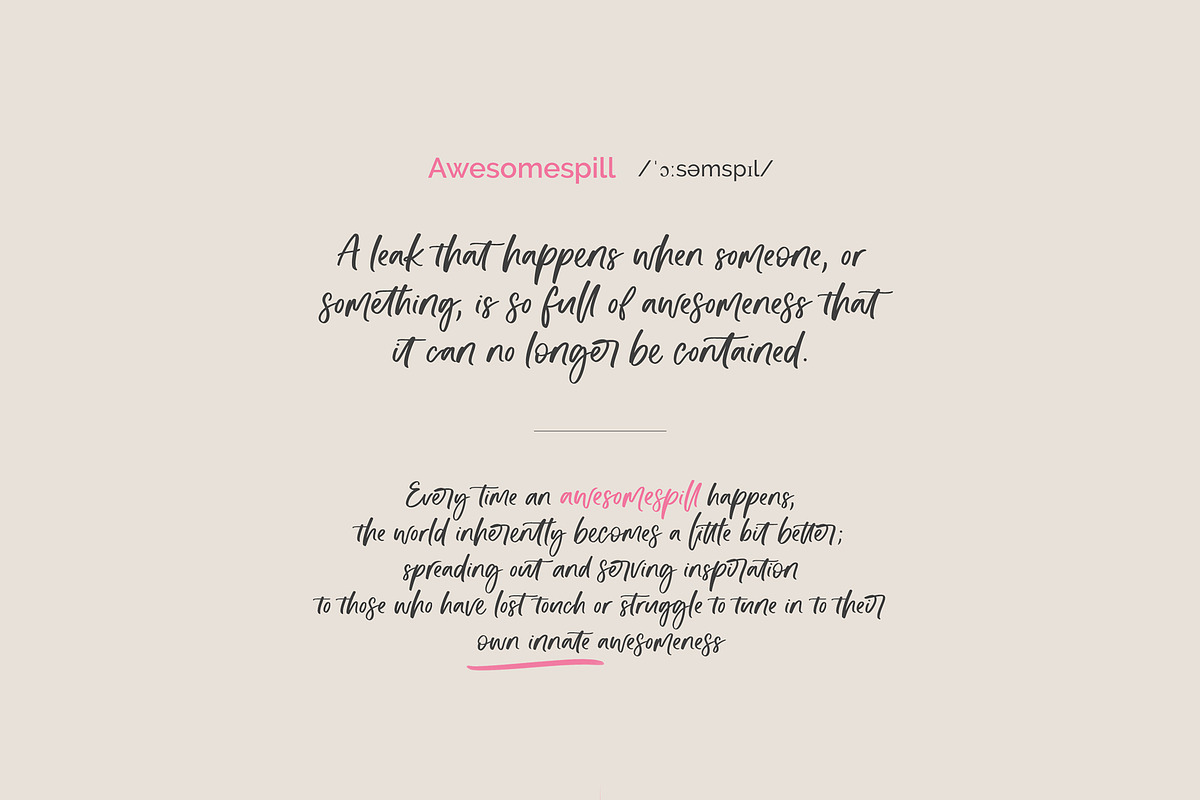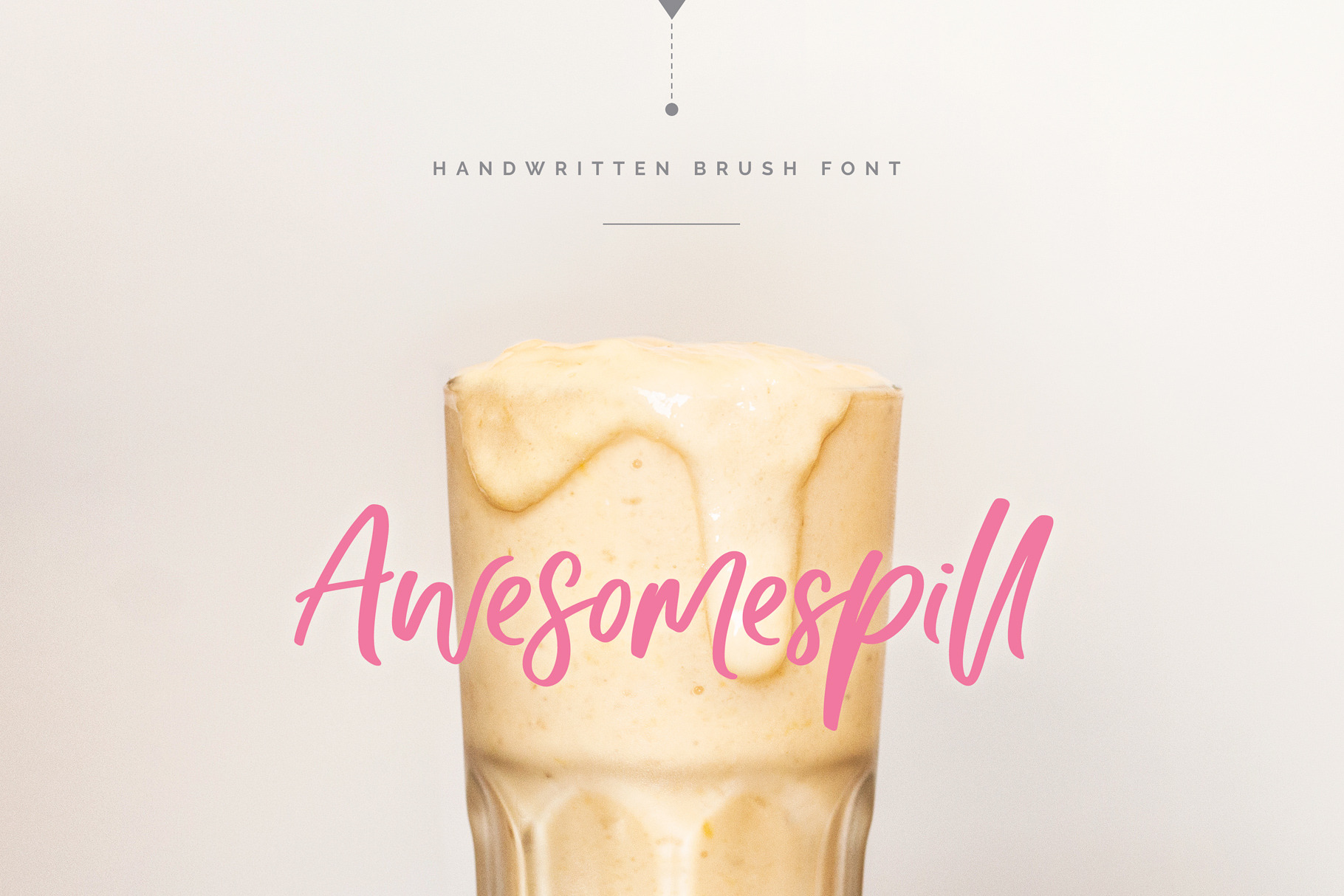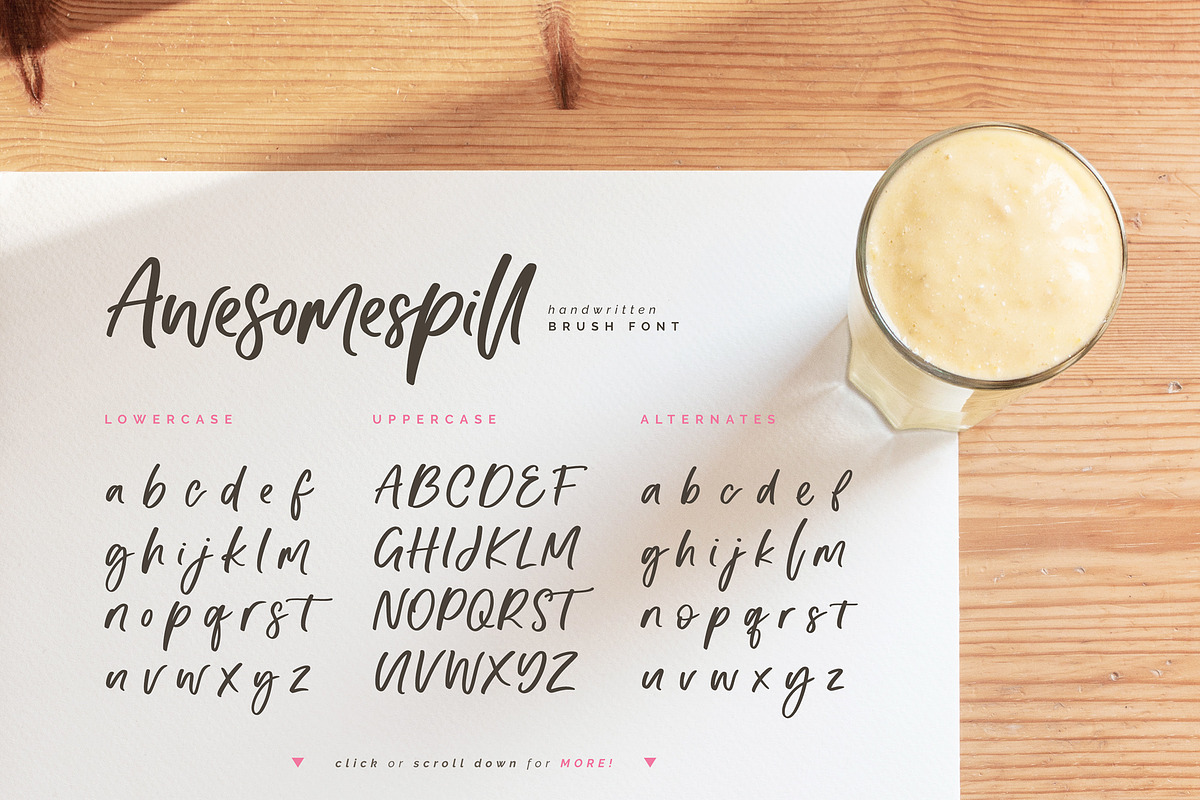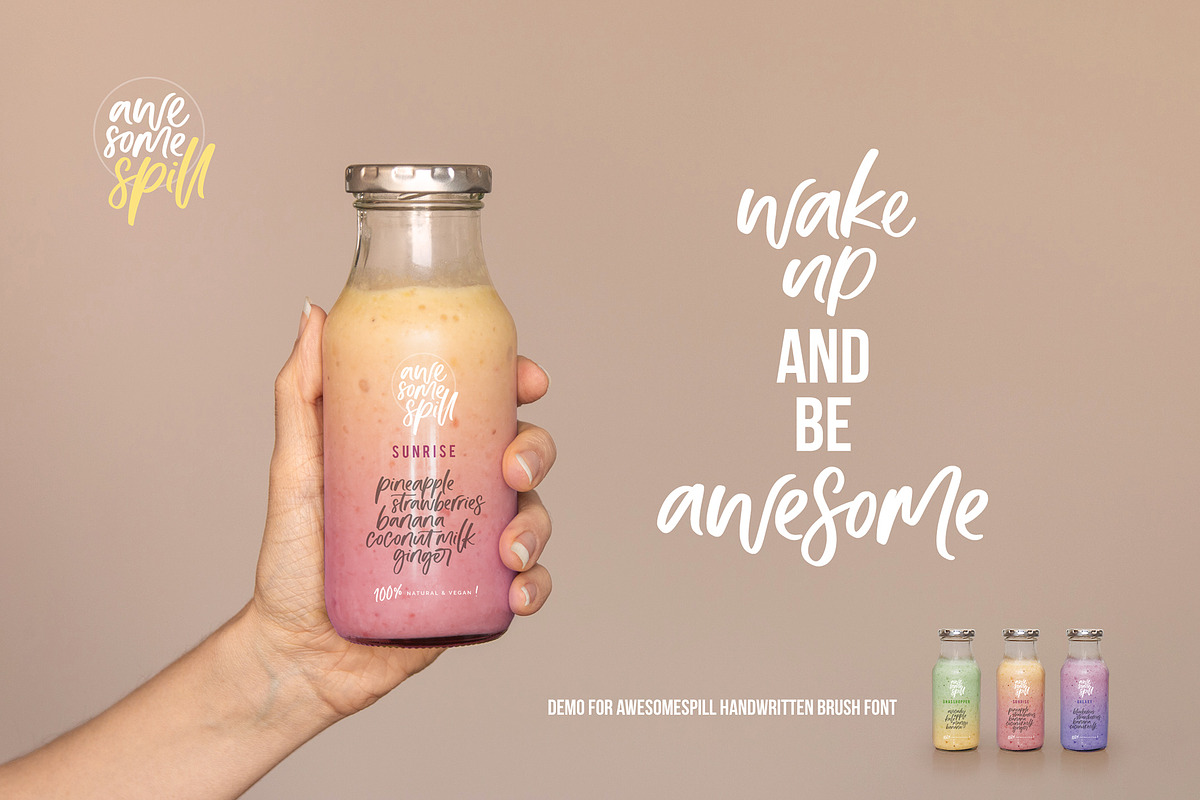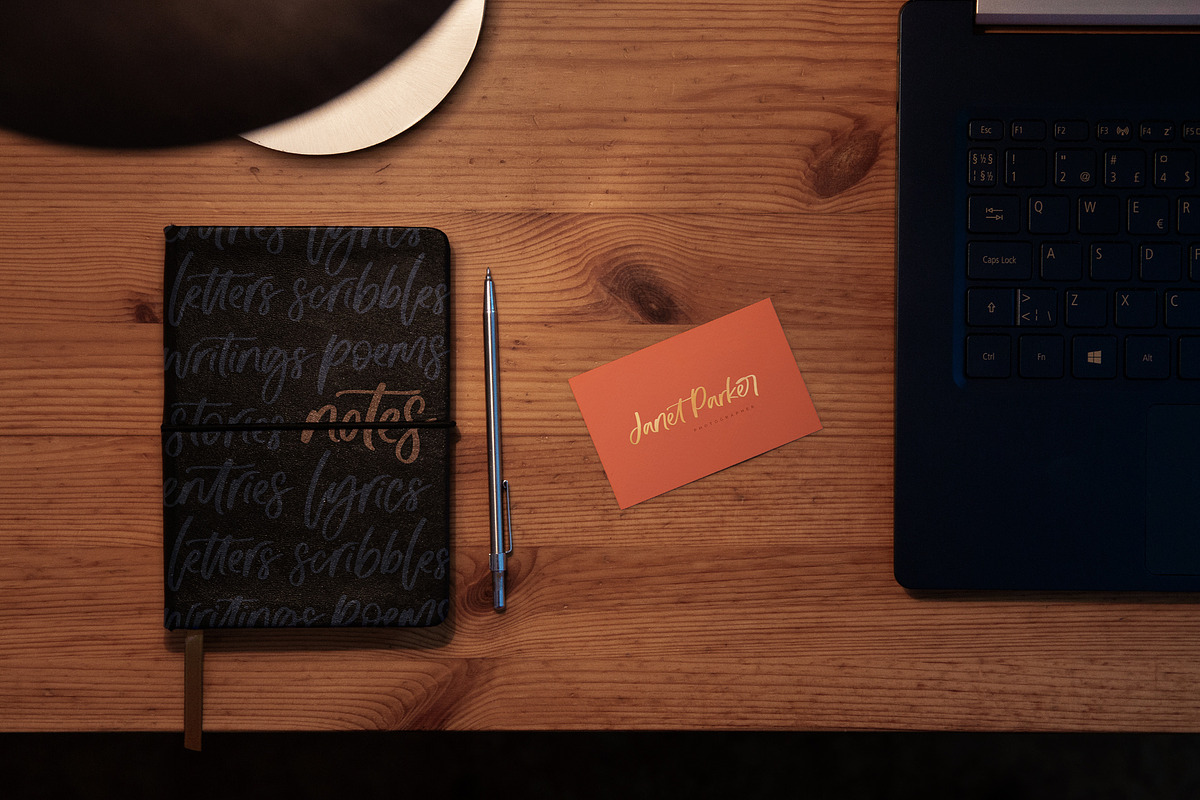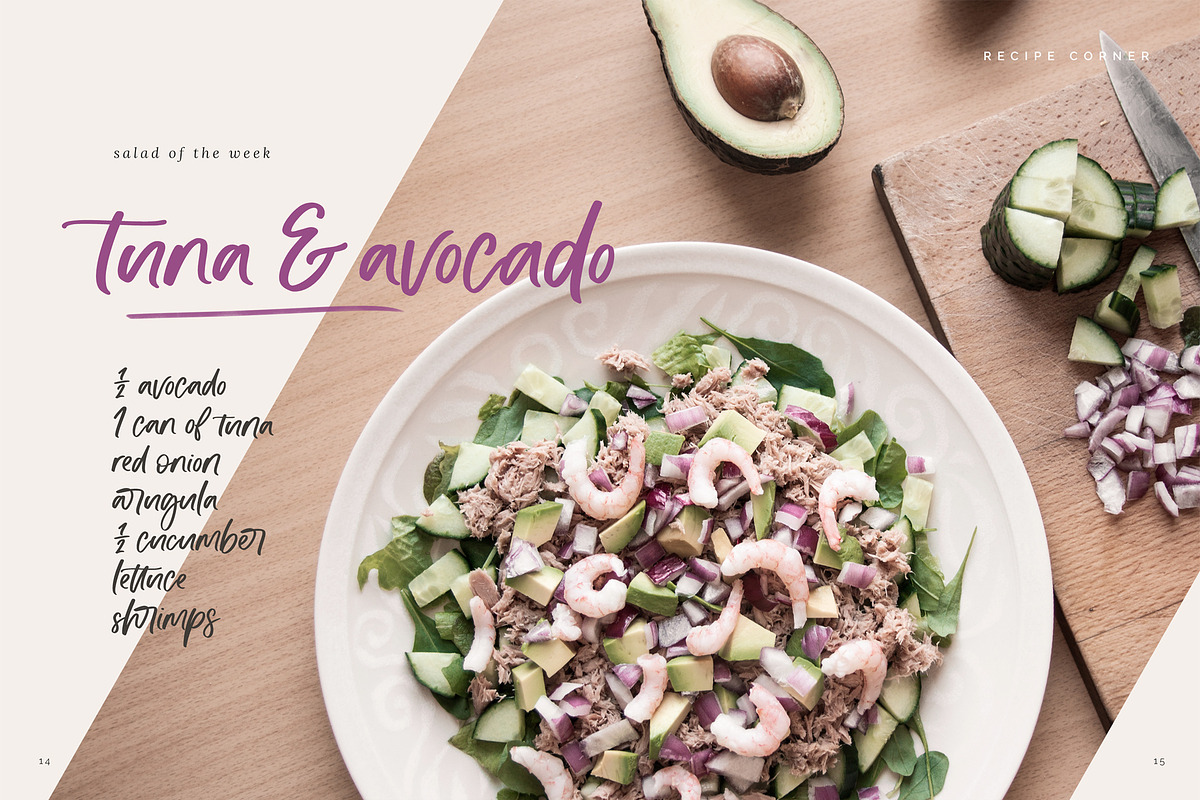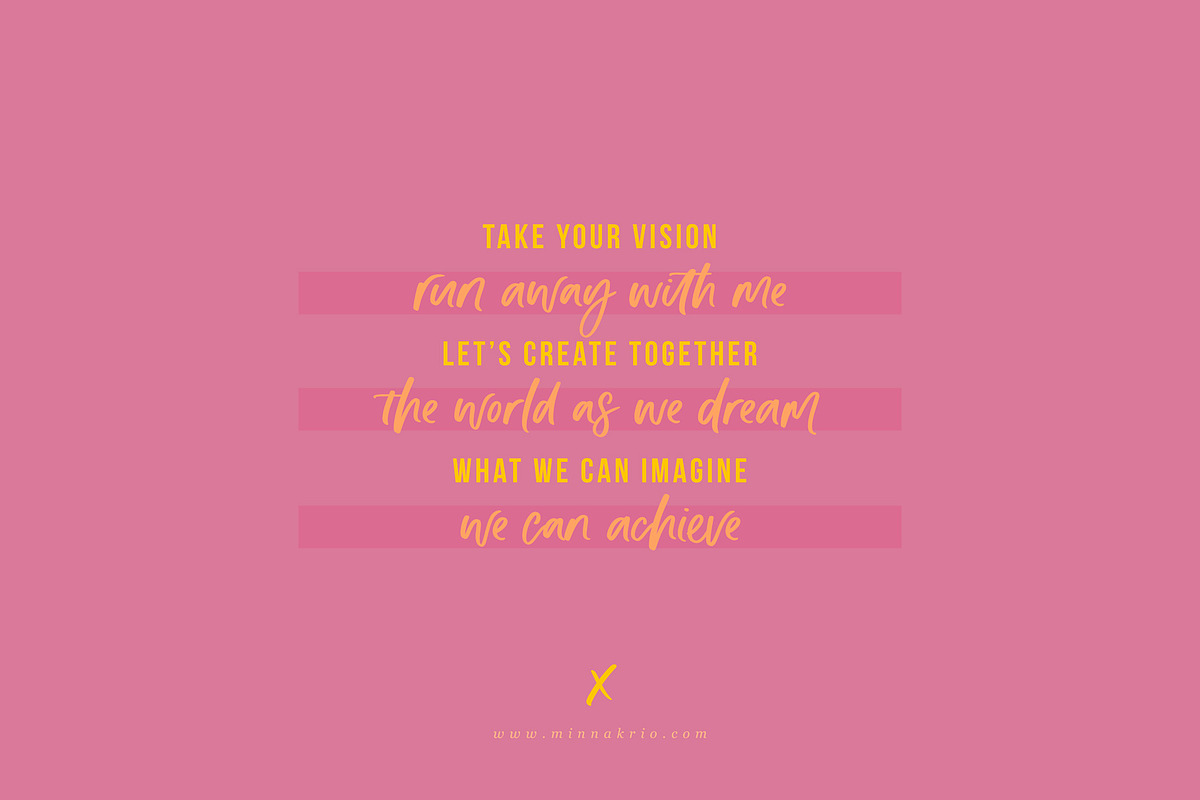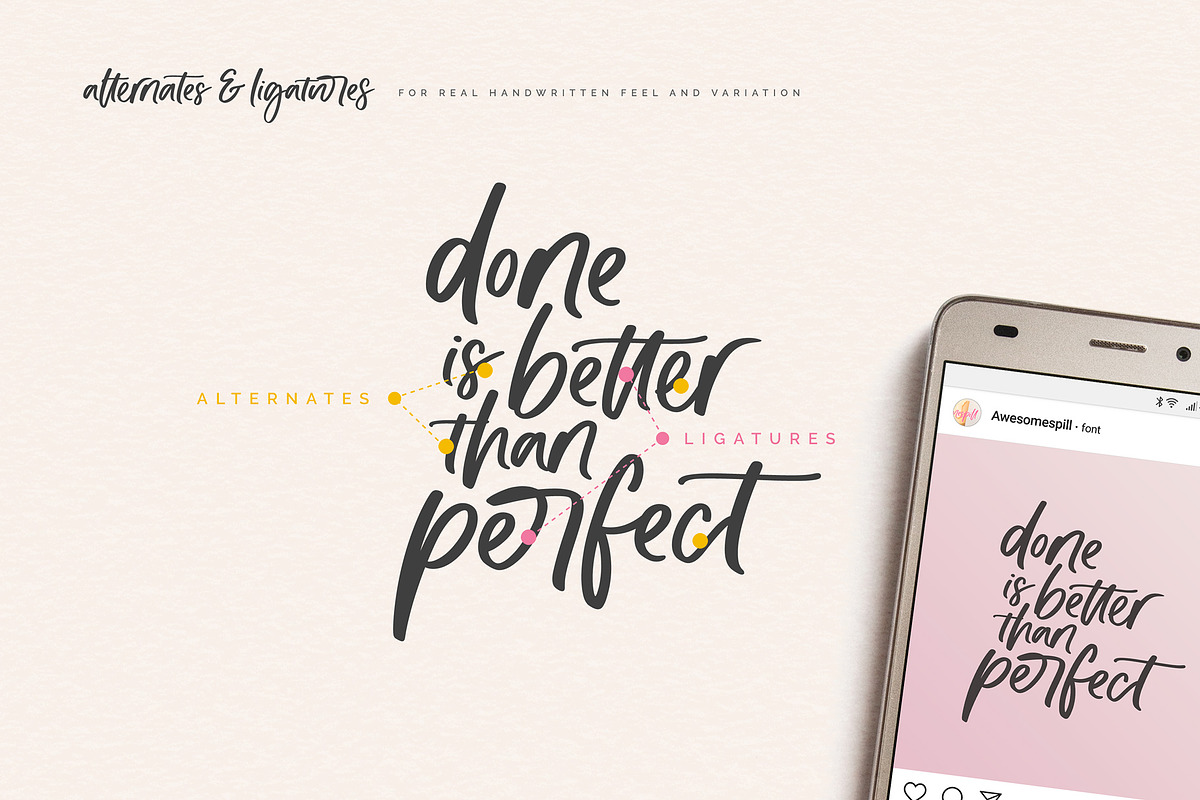
Awesomespill | handlettered font
Hey, I'm happy you're here to check out my font! Awesomespill is a fun, lively, JUICY handwritten brush script that's been crafted with great care, love and attention to detail. It's ideal for logos, headings, product packaging, merchandise, quotes... Try it out yourself in the preview section - what you see is what you get!
To achieve that authentic handlettered feel, Awesomespill comes with a full set of lowercase alternates as well as 21 ligatures to play with, giving you plenty of variety. If you use software that supports OpenType, everything is included in the main font that will live as you type. If not, the Alternates and Ligatures can be accessed through their own Alt & Liga fonts.